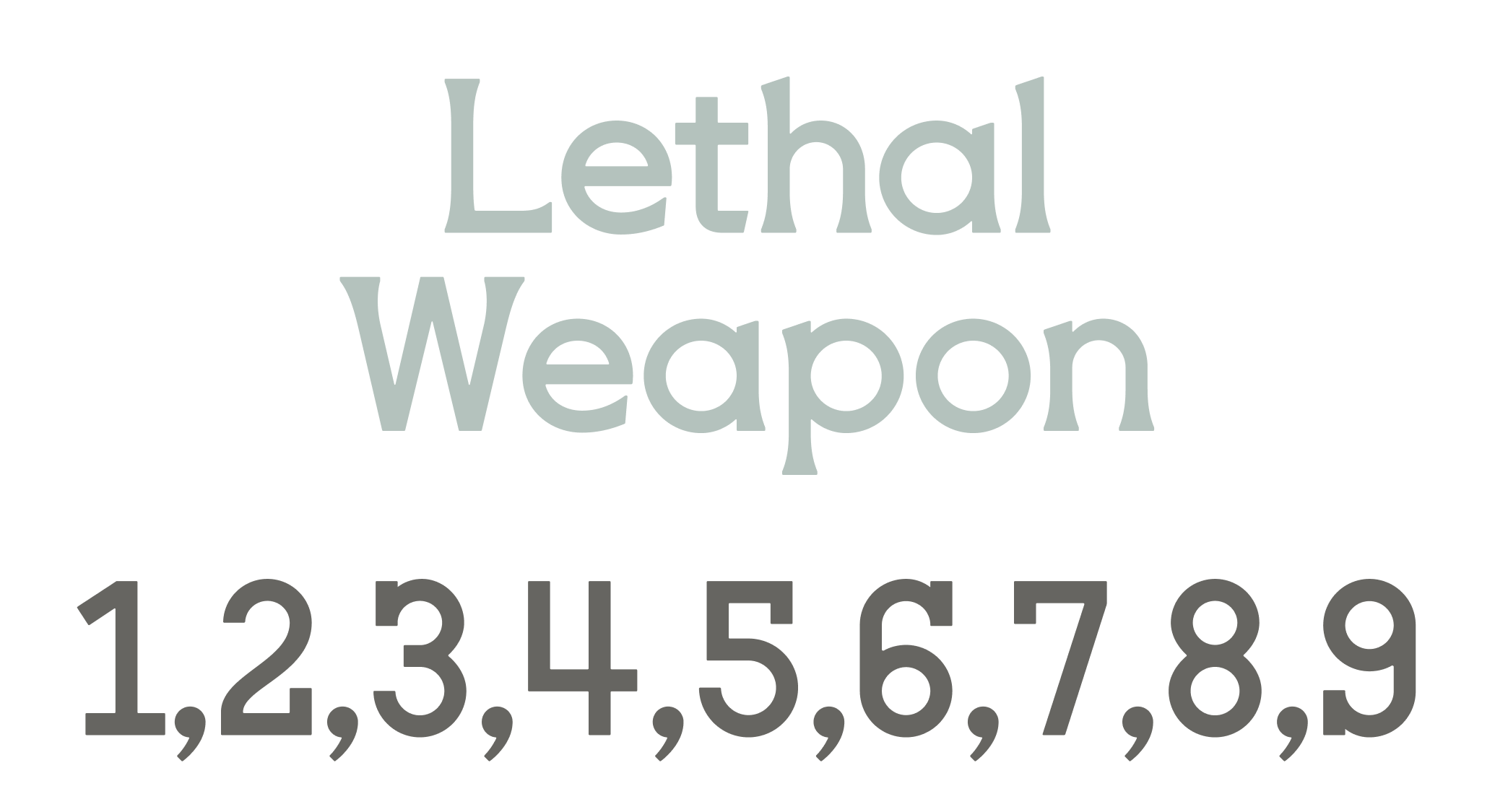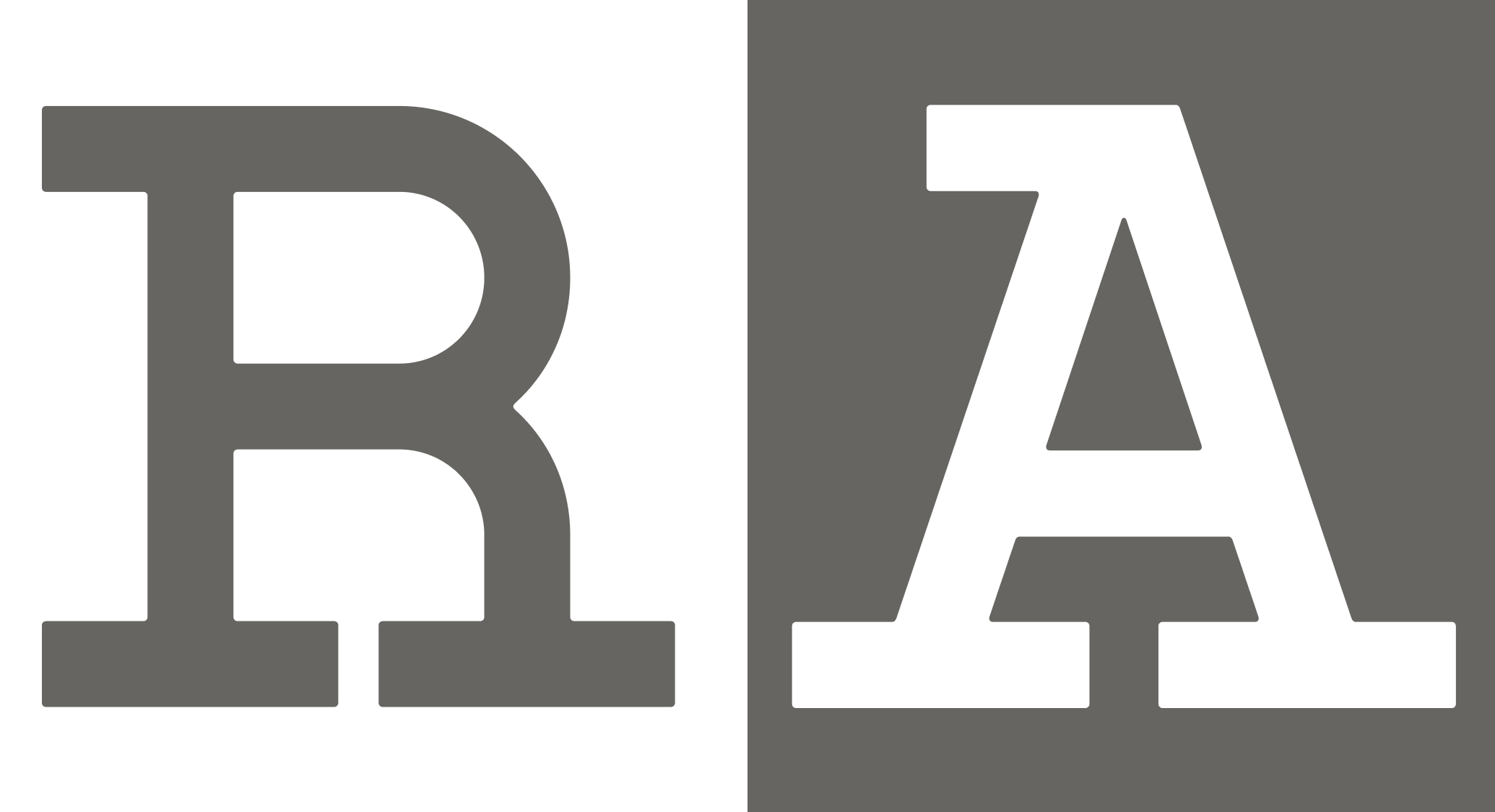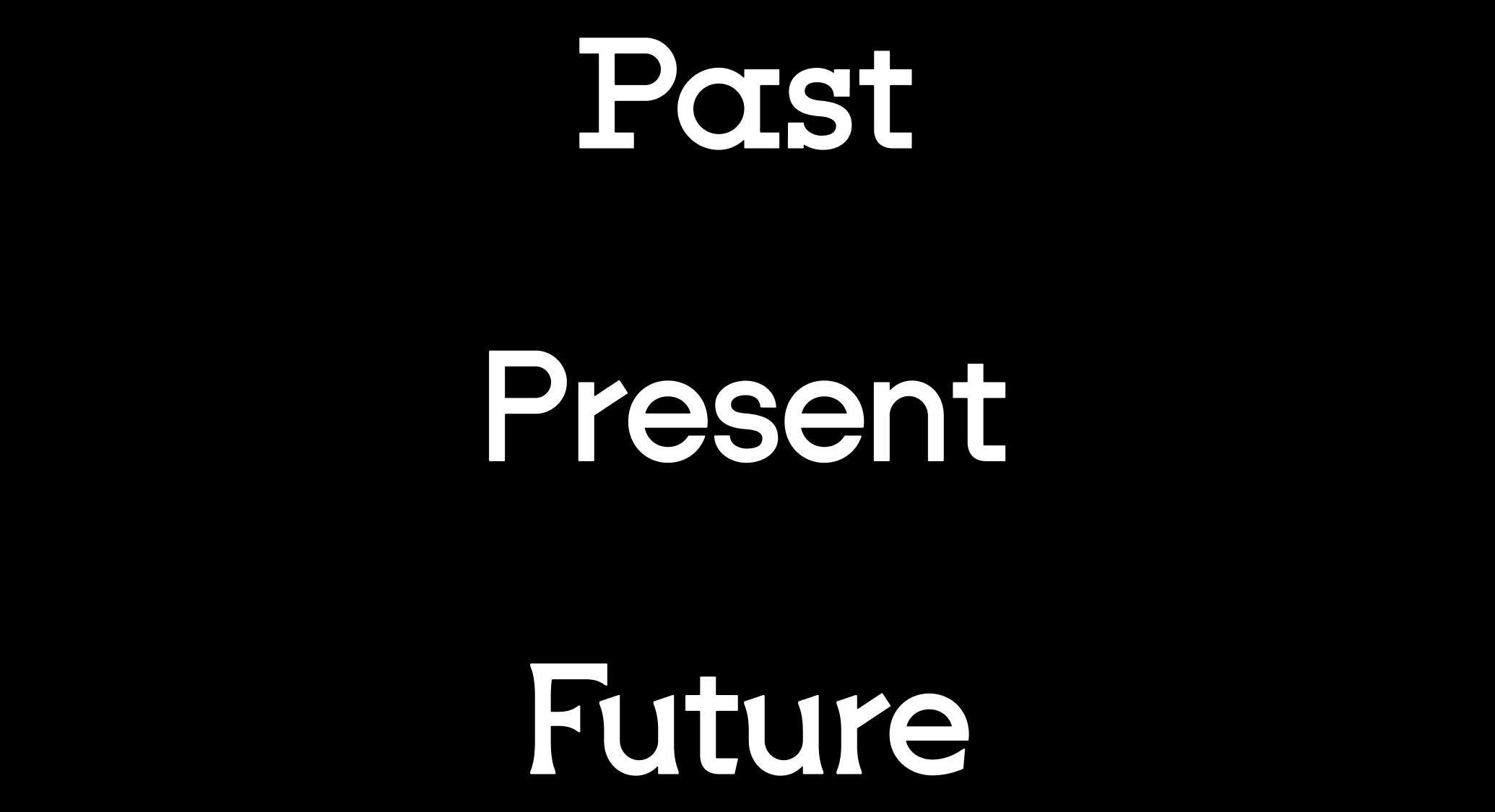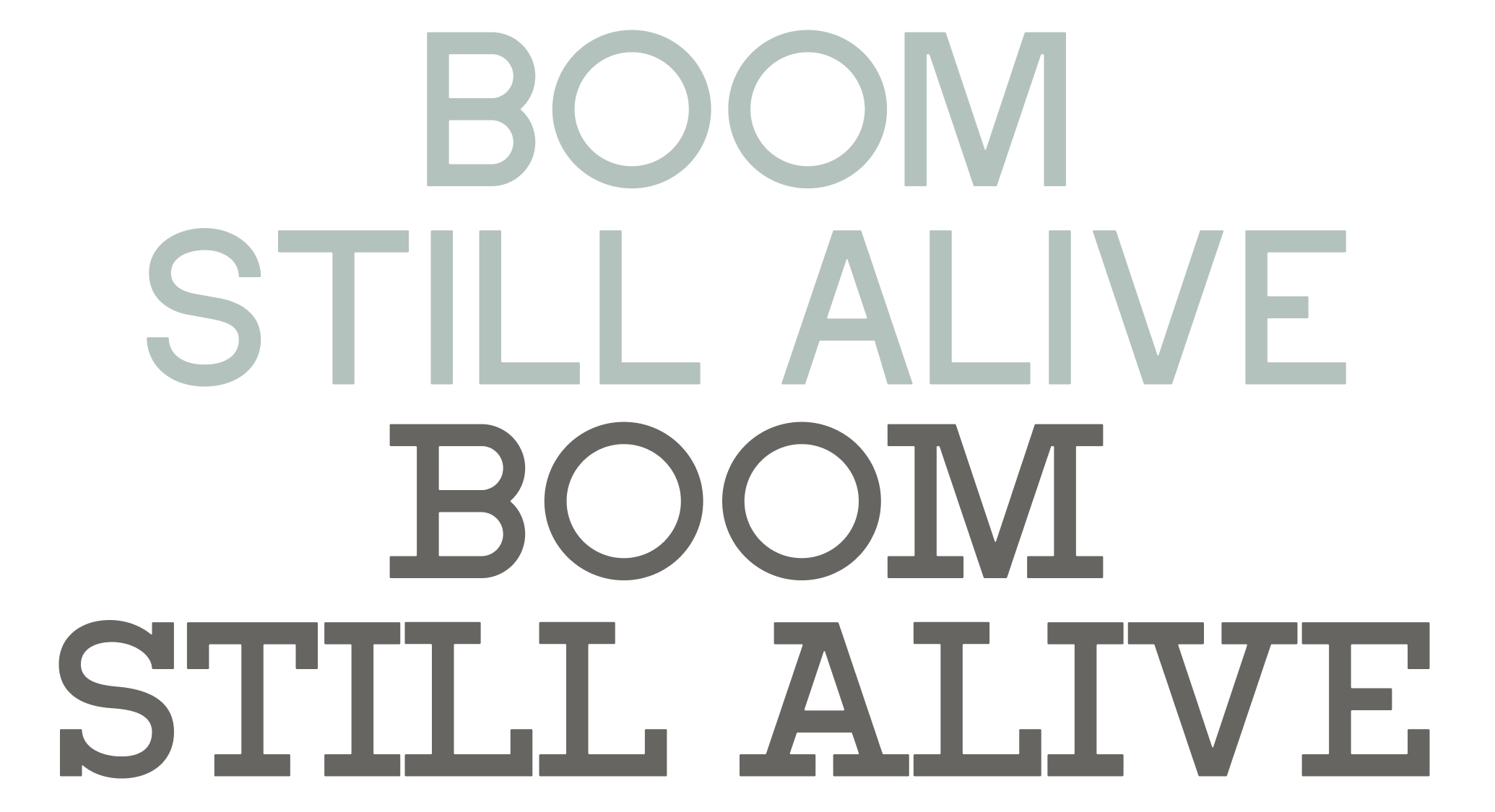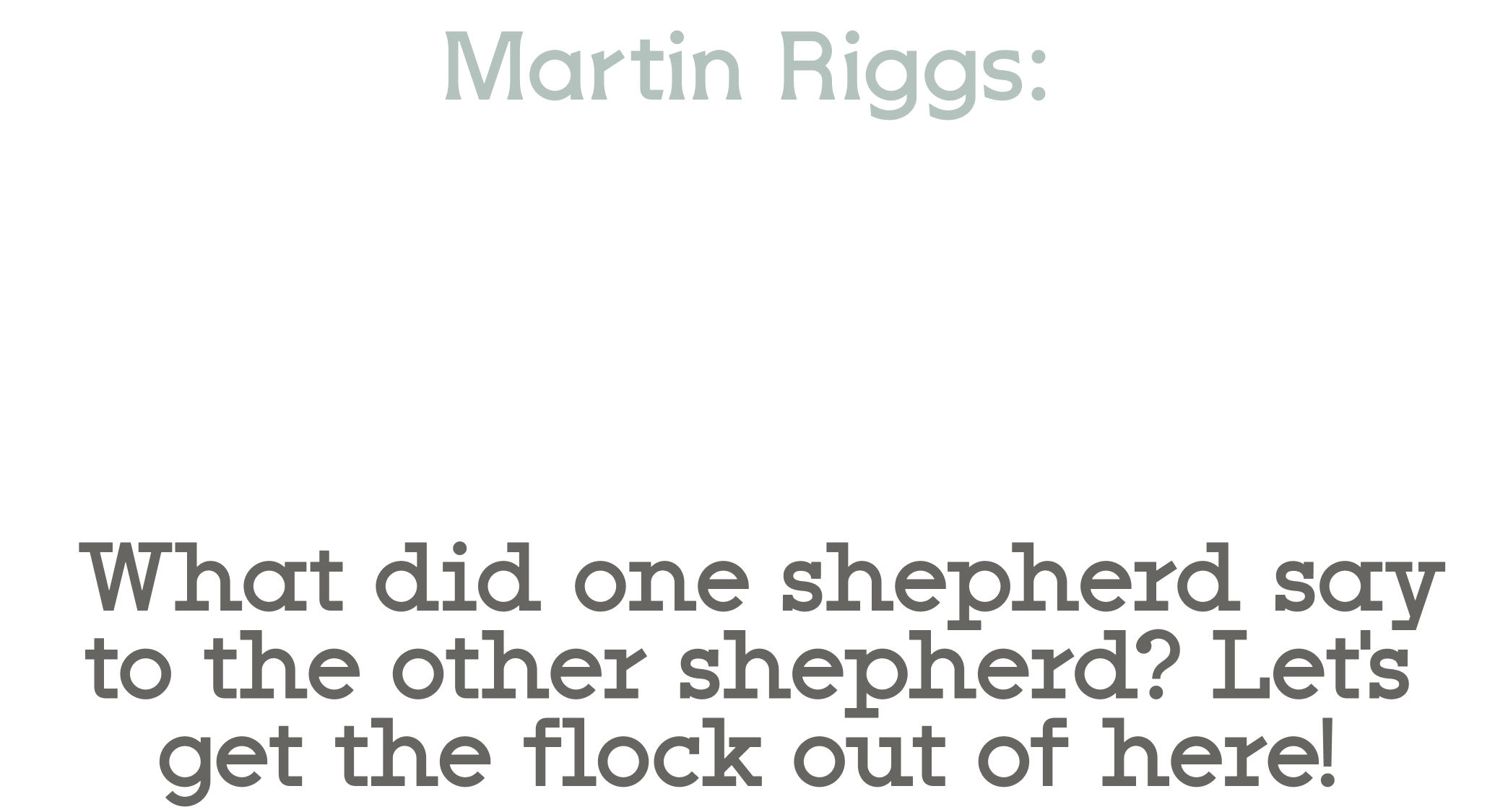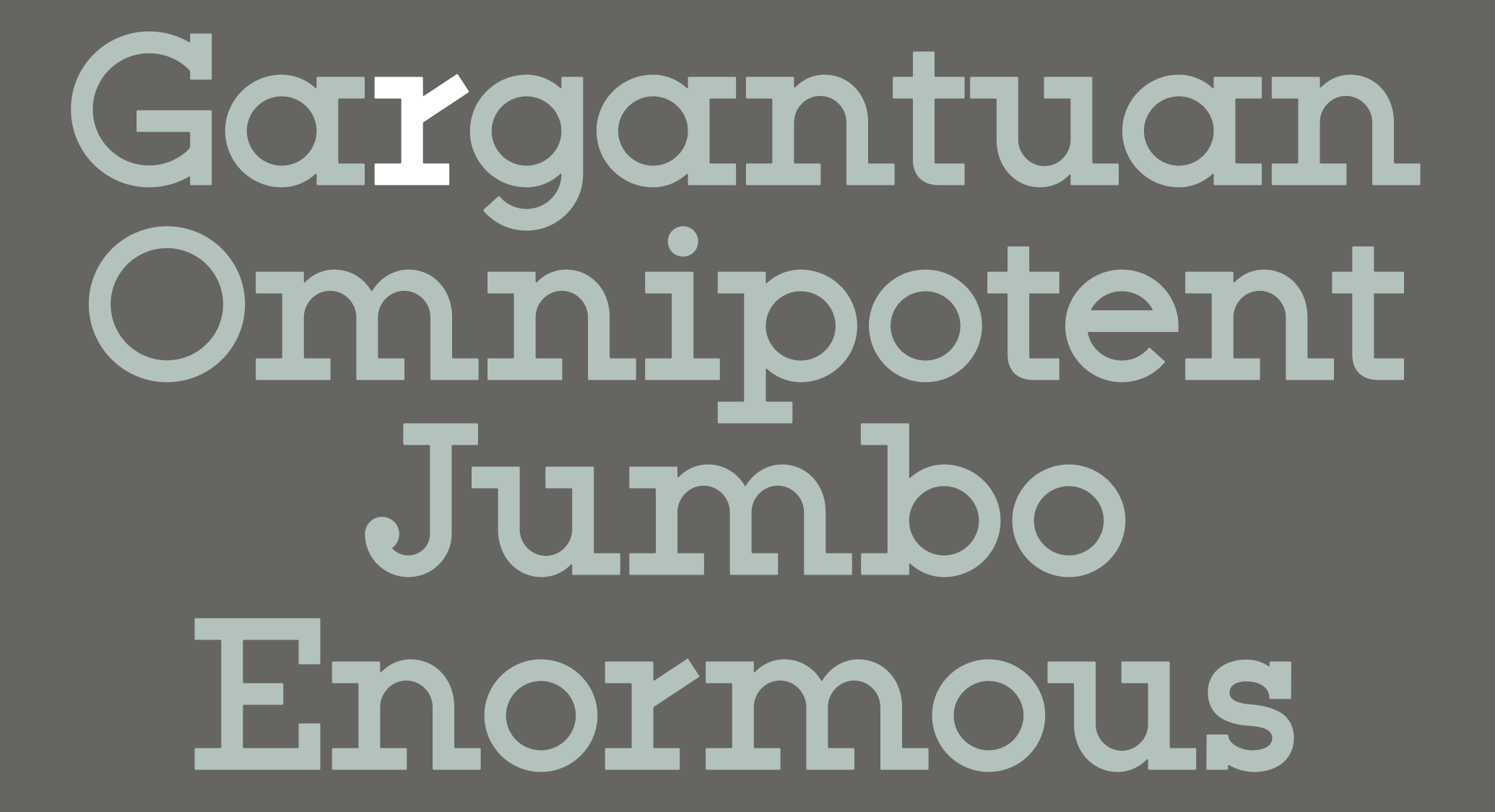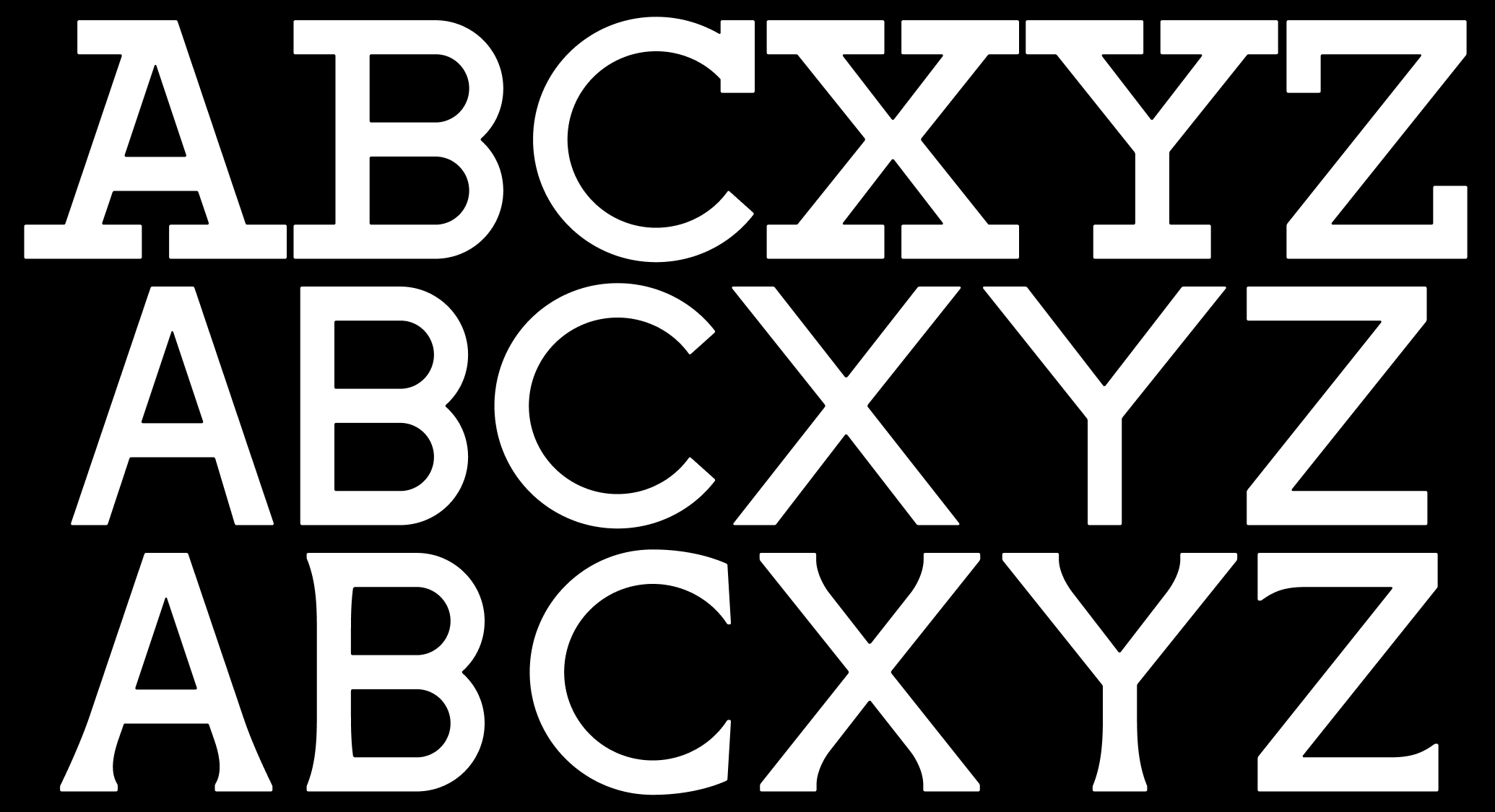
AF Murtau
AF Murtau is a tireless throwback to the golden age of slab serifs. Breathing new life into this iconic American style, it adopts upward strokes, soft edges, and other details sure to invigorate any application. Murtau is characterized by its optimistic mien, uniquely sturdy stance, and refusal to retire.